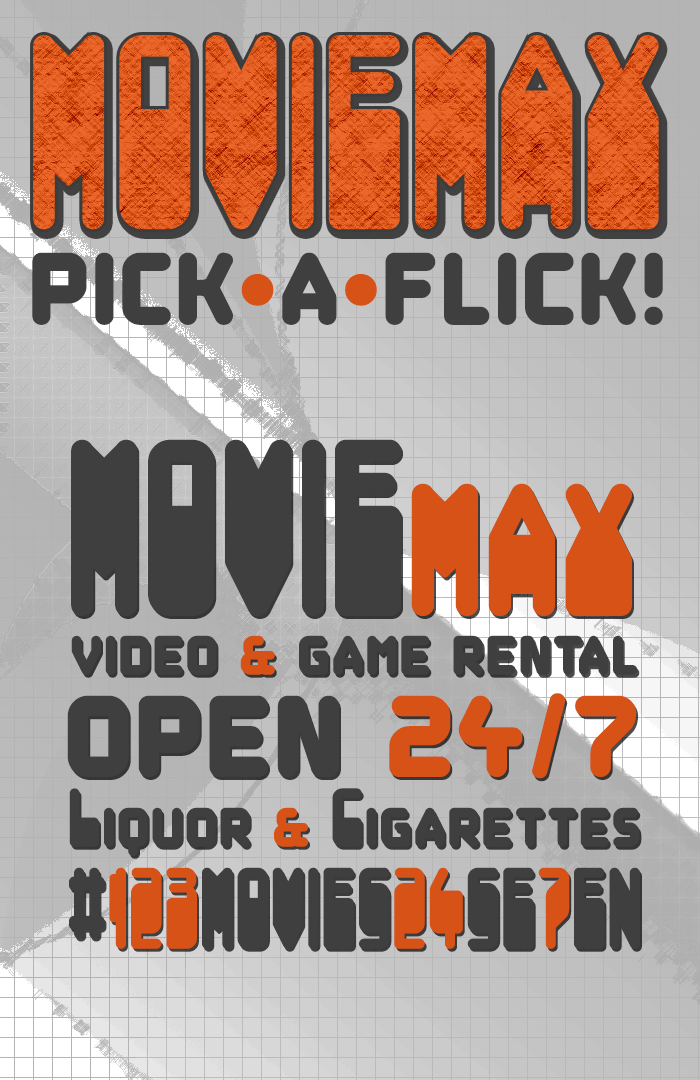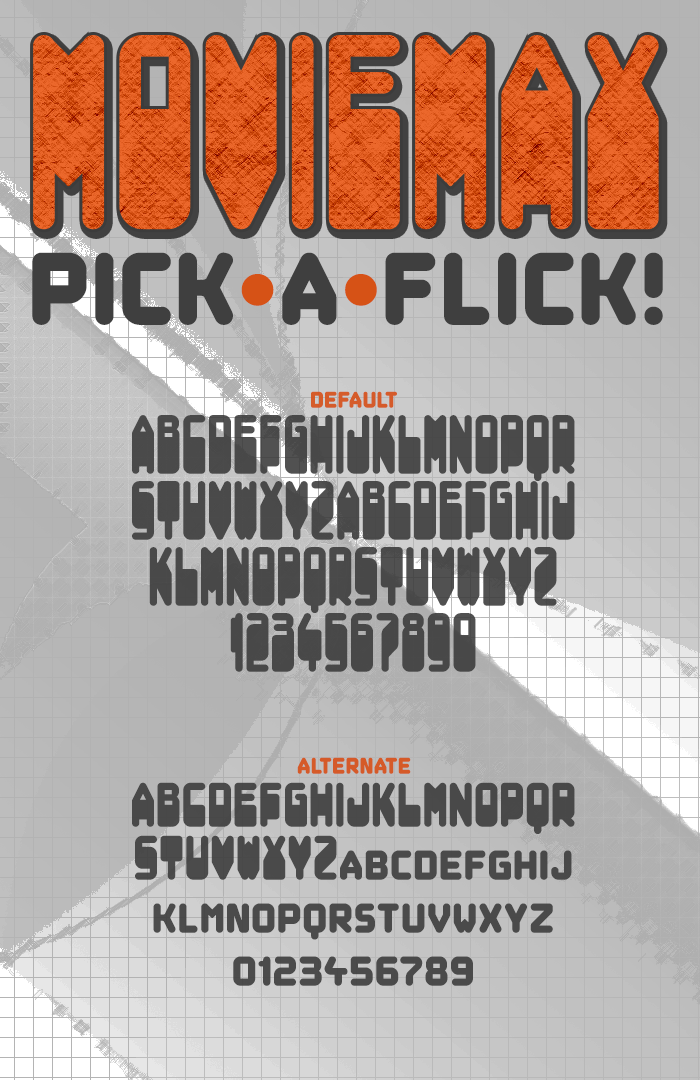
• MOVIEMAX  — Groovy bold & roundish 70s display sans
Moviemax is a bold display sans-serif that has a groovy 70s offbeat look. Essentially an all-caps lettering concept with simple looking letters. The basic geometry and inversed contrast with its soft rounded finish create an immediate endearing effect.
The default characterset comes as all-caps (unicase) only, with no glyph alternative forms. It has been completed with additional symbols and punctuation marks.
To make thing a little more interresting I have also included a full (A-Z) alphabet set of small-caps letter modifications with drastically altered proportions. Complete removal of the inversed stressed contrast to make a more simplified and cleaner looking minimalist letter style. Their size was also reduced to 50% of the cap-height (scale ratio ≈ 1:2), providing an optional alternative for the missing lowercase forms in the font.
To finished off this extra set of small capital letters, another additional full (A-Z) alphabet set of large capital letters was included. These letters have also been scaled down a bit to better fit with the small capital letter set (scale ratio ≈ 6:8 or 75% of cap-height).
The 2 sets include a slight more unique and stylized level of sophisticated characteristics to the font, and when used combined together in a mixed-case text format creates nice text capitalization.